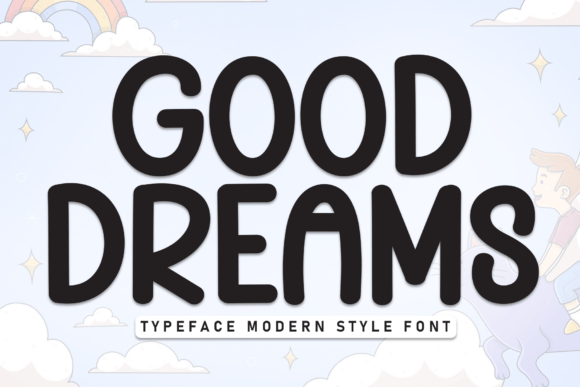
Where Words Come Alive: Discover the Magic of Good Dreams Font
Who hasn’t sat at their desk, staring at a blank sheet of paper, waiting for the perfect words to flow? For designers and creatives, this moment of inspiration can be the spark that sets a project ablaze. But what happens when you need to convey a message that’s not just informative, but also warm and inviting?
Enter Good Dreams Font, a beautifully crafted handwritten display font that brings a touch of whimsy and personality to your designs. Whether you’re crafting wedding invitations, greeting cards, or social media graphics, this font is the perfect companion to help you infuse your message with a dash of fun and friendliness. With its sweet, amicable appearance, Good Dreams Font is a valuable addition to any designer’s toolkit, helping you elevate your designs and make a memorable statement.
Good Dreams Font Key Features
- Font Family: Good Dreams Font is a sans-serif typeface, suitable for various applications including digital and print media.
- Character Set: Supports a wide range of languages including Latin, Cyrillic, and Greek scripts, making it a versatile font choice.
- Unique Characteristics: The font features a clean, modern design with a subtle rounded edge, giving it a friendly and approachable feel.
Good Dreams Font Review
First off, I love the quirky and playful vibe of the Good Dreams Font ✨. The combination of elegant curves and geometric shapes makes it perfect for creating a whimsical atmosphere in any design. The font’s unique character set and special features like swashes and flourishes add an extra layer of sophistication.
Some of the standout features of Good Dreams Font include:
- Highly legible even at small font sizes ✨
- Perfect for creating a vintage or retro aesthetic
- Works well for headings and titles
However, there are some limitations to consider ⚠️. The font’s eccentricities can make it challenging to read for those with vision impairments. Additionally, the font’s file size can be quite large, which may impact page load times. Finally, the font’s compatibility with older systems and browsers may be limited.
Overall, I think the Good Dreams Font is a fantastic choice for designers who want to add a touch of personality to their projects. While it may not be suitable for every design, it’s definitely worth considering for projects that require a unique and playful aesthetic.
Tips for Getting the Most Out of Good Dreams Font
For the best results, use Good Dreams Font for titles, headings, and other text elements that require a unique and creative touch.
Good Dreams Font is perfect for:
Typography-based art
Marketing materials and social media graphics
Alternatives to Good Dreams Font for Designers